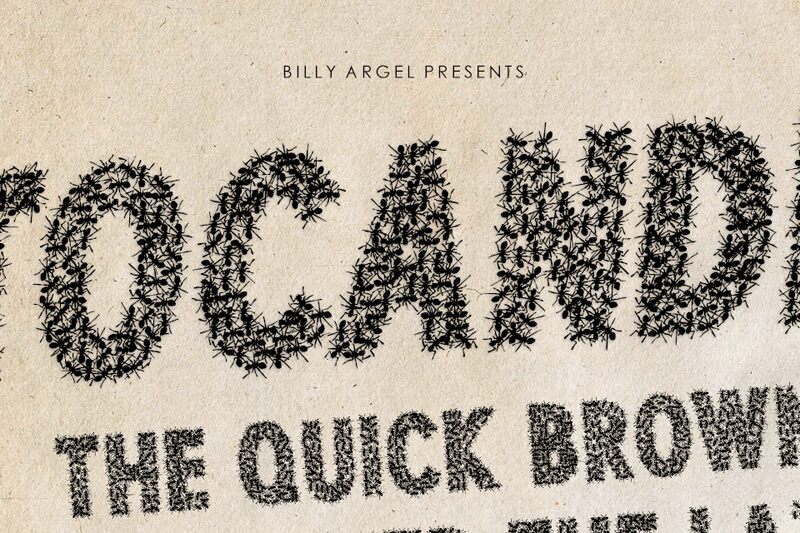
TOCANDIRA PERSONAL USE Bold
The TOCANDIRA Bold font, designed by Billy Argel Fonts, is a stunning addition to any design project. With its condensed width and bold weight, it's perfect for headlines and titles that need to make an impact. The decorative style adds a touch of personality and flair to any design, making it ideal for branding projects or marketing materials. Whether you're creating posters, flyers, or social media graphics, the TOCANDIRA Bold font will help your message stand out from the crowd. So why settle for ordinary when you can have extraordinary with this eye-catching display font?
Two versions regular and italic